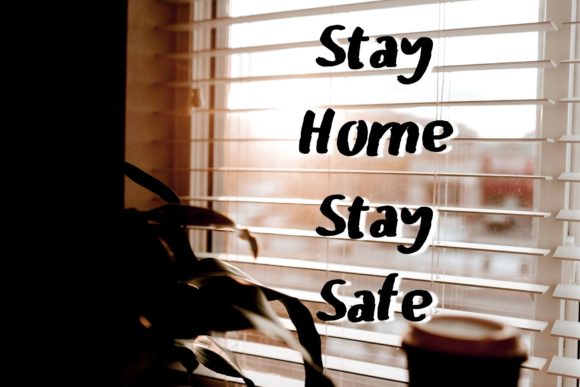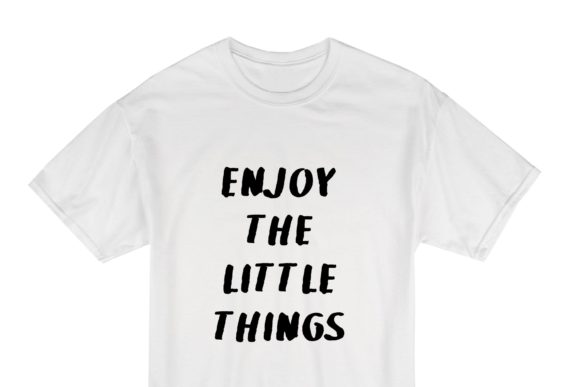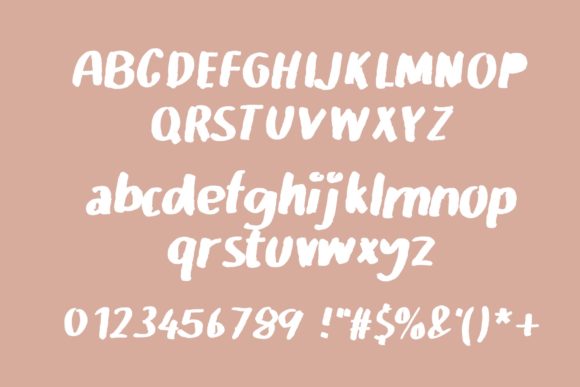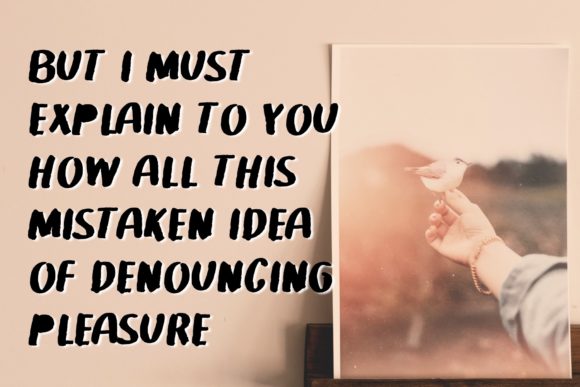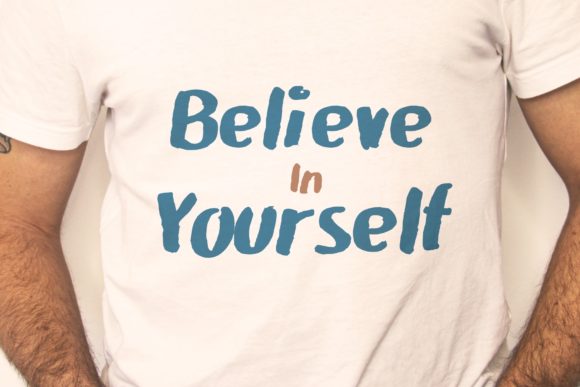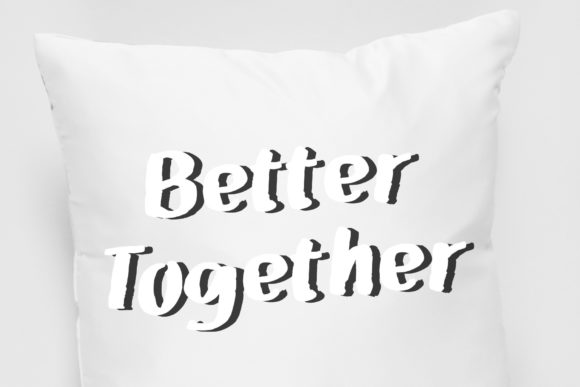
Unlock the Magic of Dreams Font
Introducing Dreams Font, a beautiful display font designed to add a touch of warmth and friendliness to your designs. Whether you’re working on branding, social media posts, stationery, or anything in between, Dreams Font is the perfect companion to help you create stunning visuals that capture the essence of your brand or message.
What makes Dreams Font so valuable for designers is its unique ability to evoke emotions and connect with your audience on a deeper level. With its friendly look and versatile style, Dreams Font is the perfect tool to help you unlock your creativity and bring your dreams to life.
Dreams Font Key Features
- Font Family: Dreams Font is a unique, hand-drawn font family that includes multiple styles and weights.
- Unique Characteristics: The font features intricate, hand-drawn details and subtle texture, giving it a distinctive, artistic feel that sets it apart from more traditional fonts.
Dreams Font Review
Overall, I’d say Dreams Font is a solid addition to any designer’s toolkit. It’s ✨ versatile, with a wide range of styles that can be used for both body and headline text. The font’s ✨ rounded edges give it a friendly, approachable feel that’s perfect for creative projects or brand identities that want to convey a sense of approachability.
One of the things I love about Dreams Font is its ✨ extensive character set, which includes a wide range of punctuation and symbol options. This makes it easy to create visually interesting and cohesive designs, even when working with complex layouts.
While Dreams Font is a great all-around choice, there are a few areas where it falls short:
- ⚠️ Limited support for certain languages, which may be a concern for designers working on international projects.
- ⚠️ Some users have reported issues with font rendering at smaller sizes, which can affect readability.
Overall, I’d recommend Dreams Font to designers who want a reliable, easy-to-use font for their projects. While it may not be the perfect choice for every situation, it’s a solid addition to any designer’s toolkit.
Dreams Font is ideal for creative and artistic projects, such as:
Book covers and magazine titles.